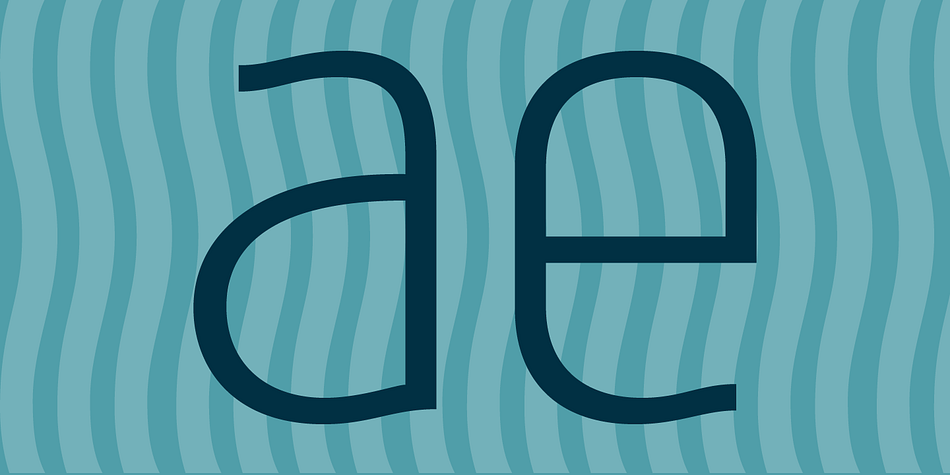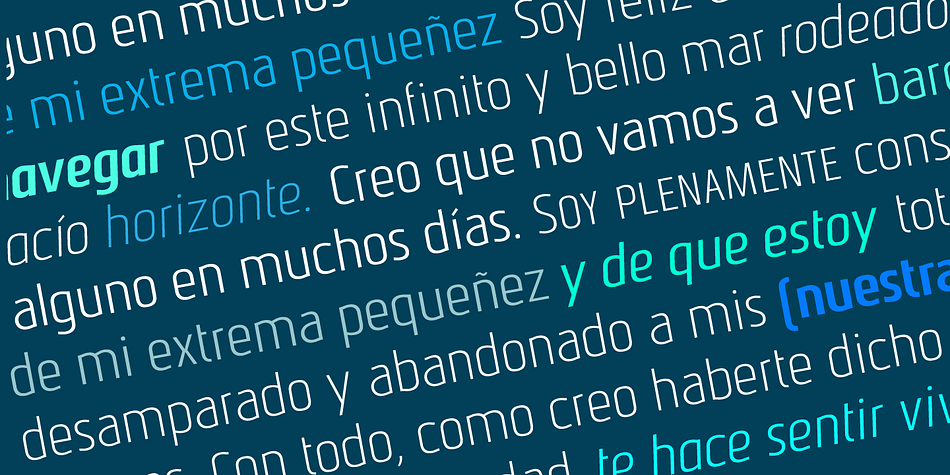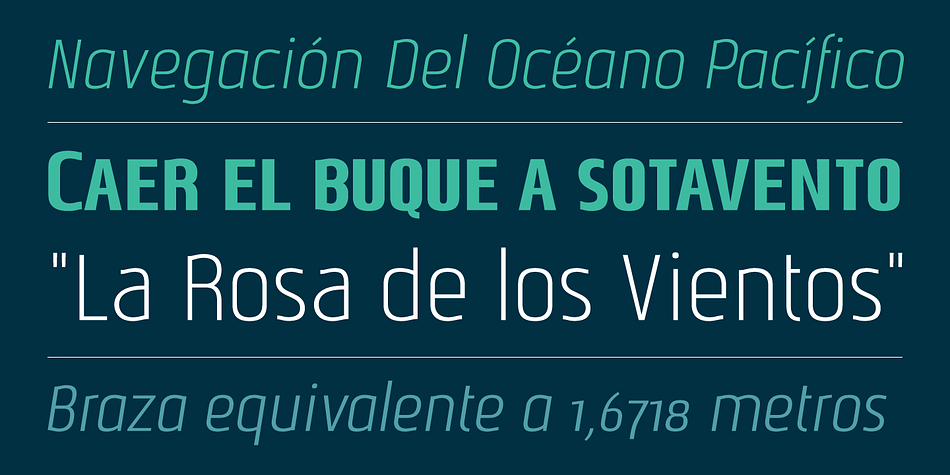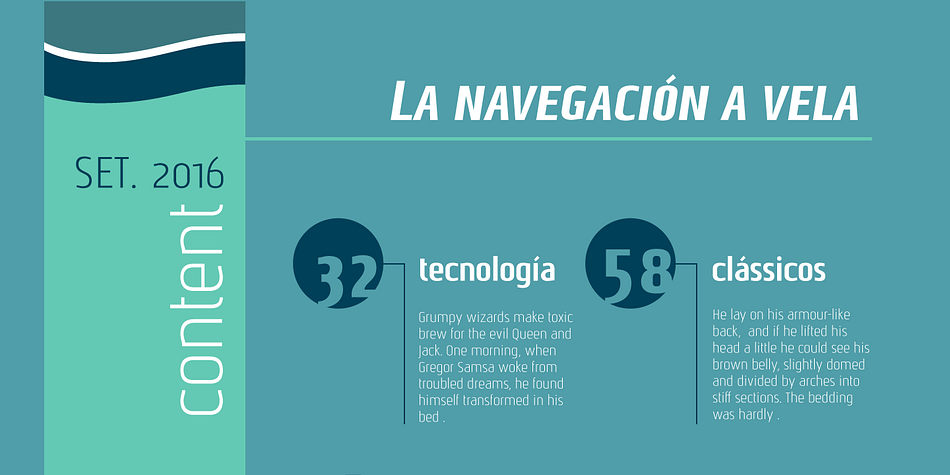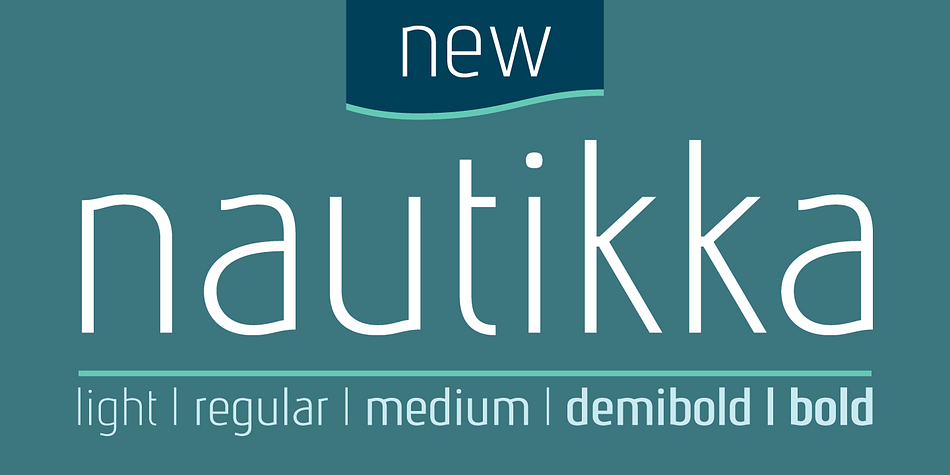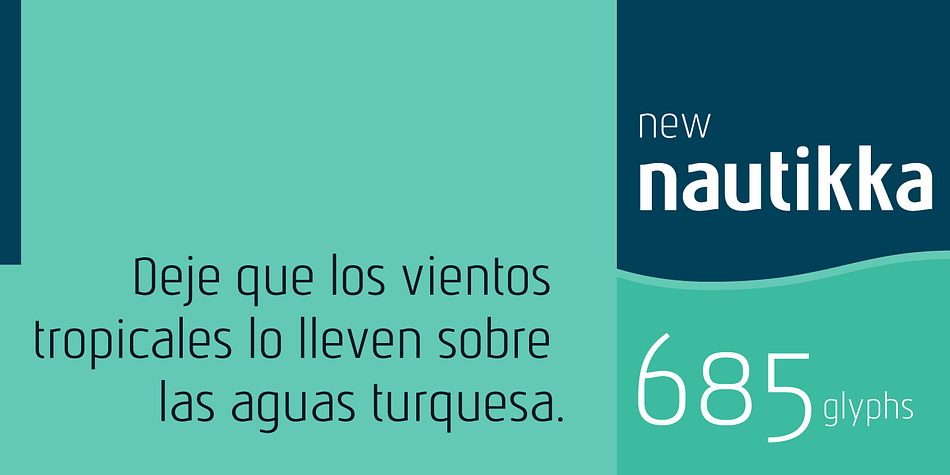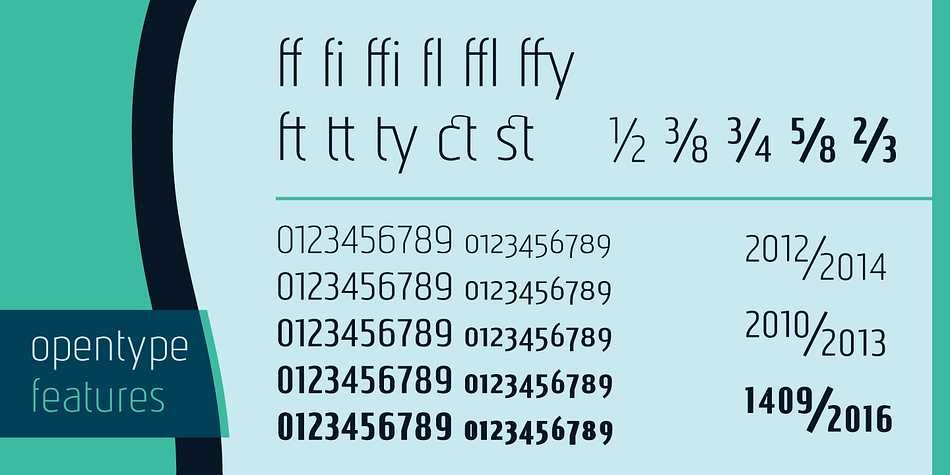
Nautikka is a sans serif font family. This typeface has ten styles and was published by Sea Types.
Nautikka which was designed from the waves of the sea is a sans serif. It is elegant and functional for editorial design, visual identities or digital applications. With 685 glyphs, 5 weights and variations in italics, it is a versatile font with great legibility.